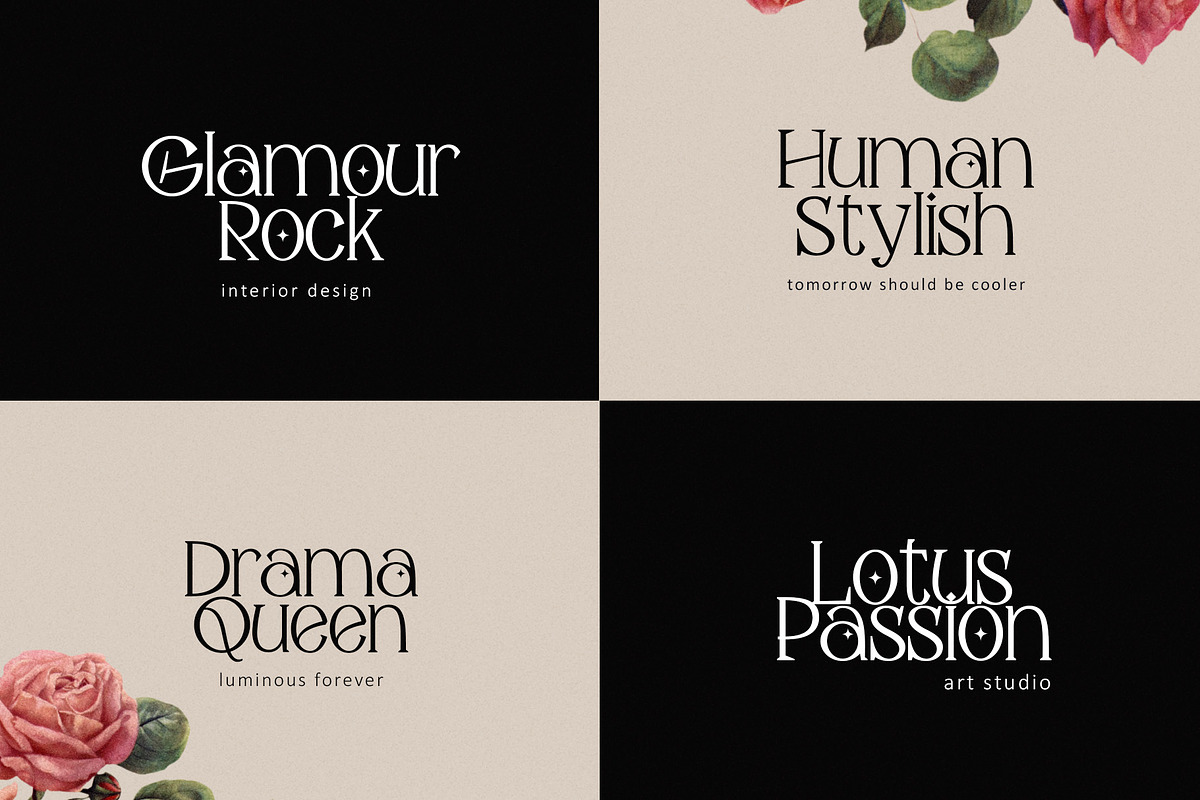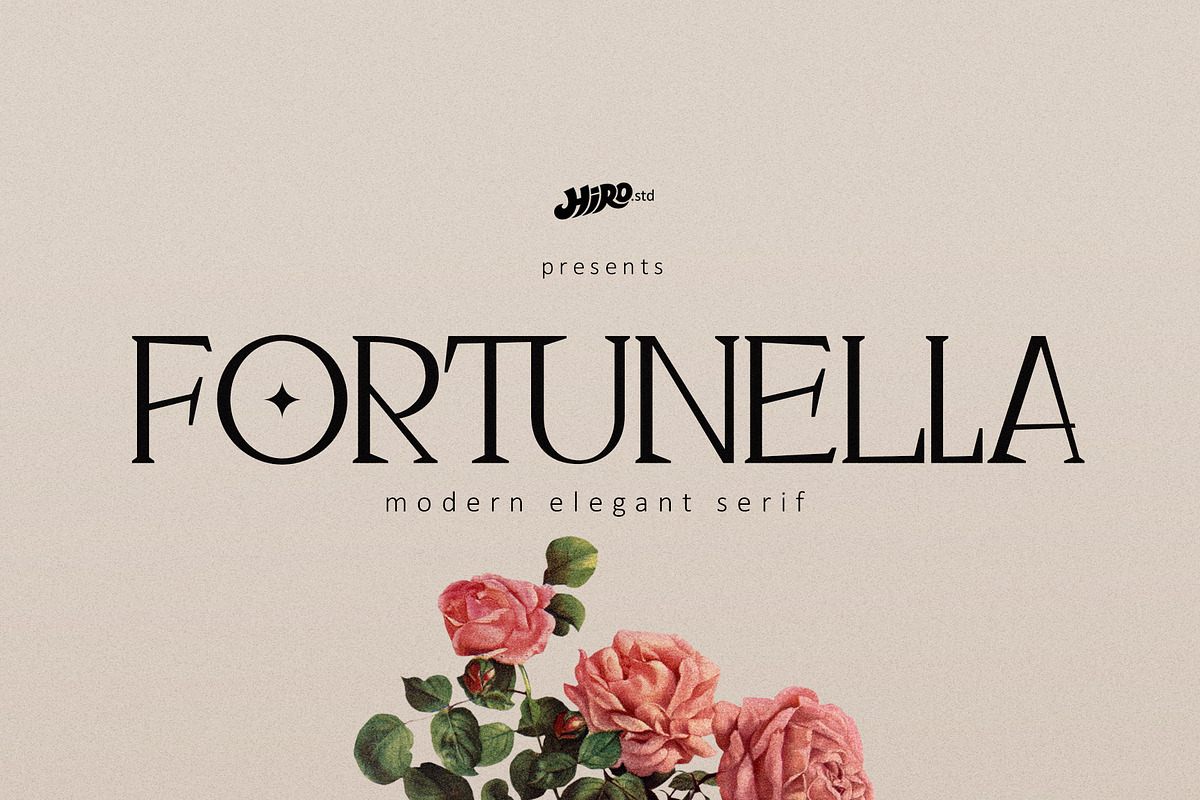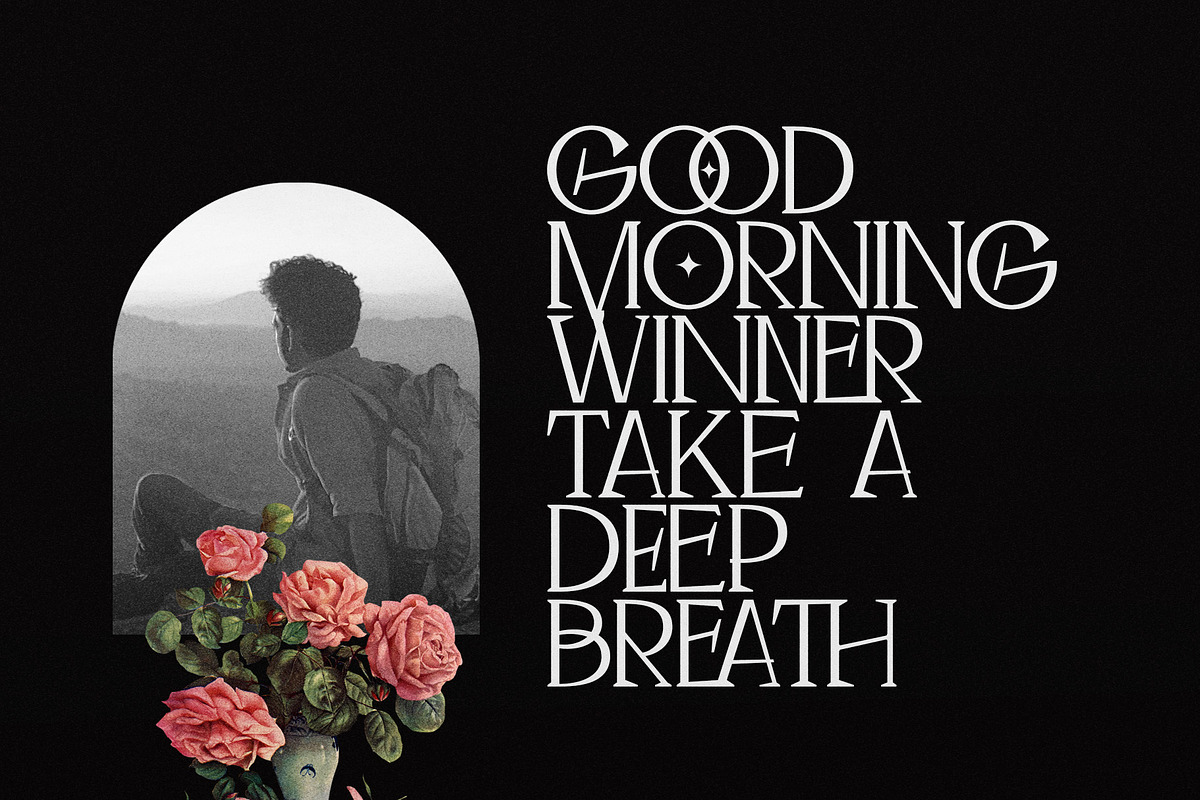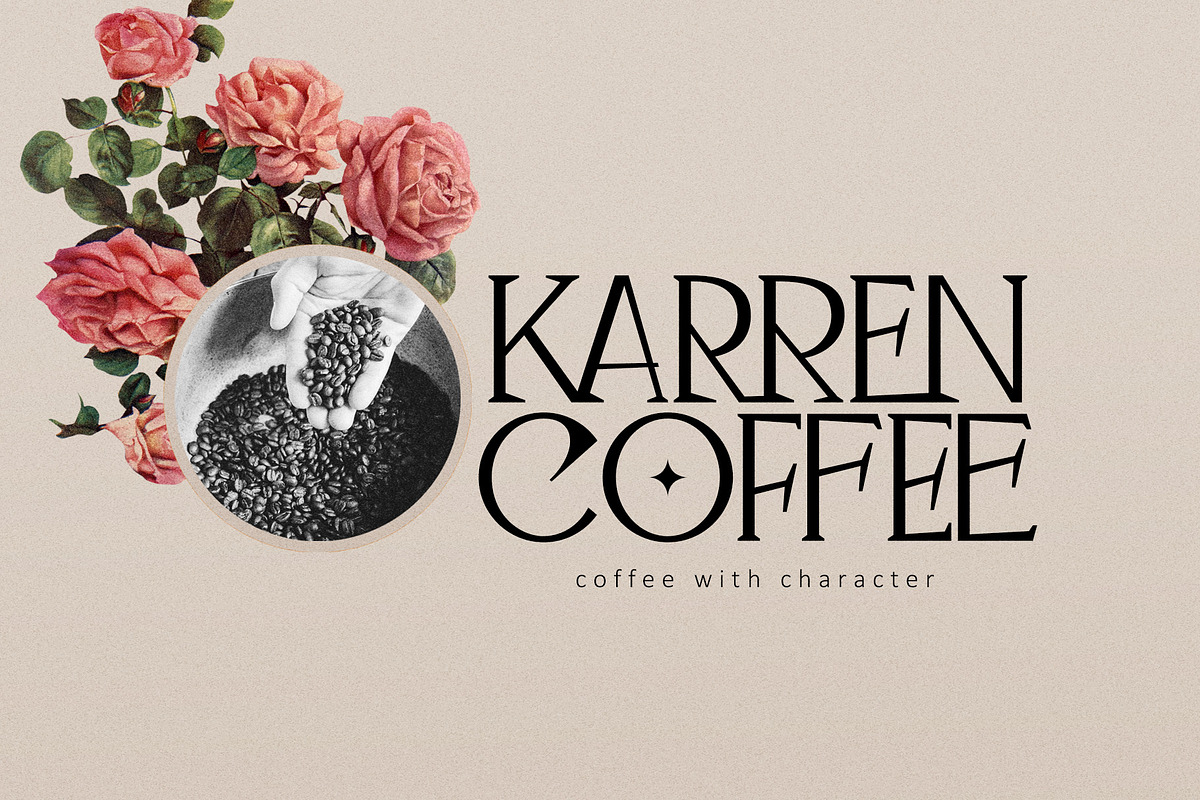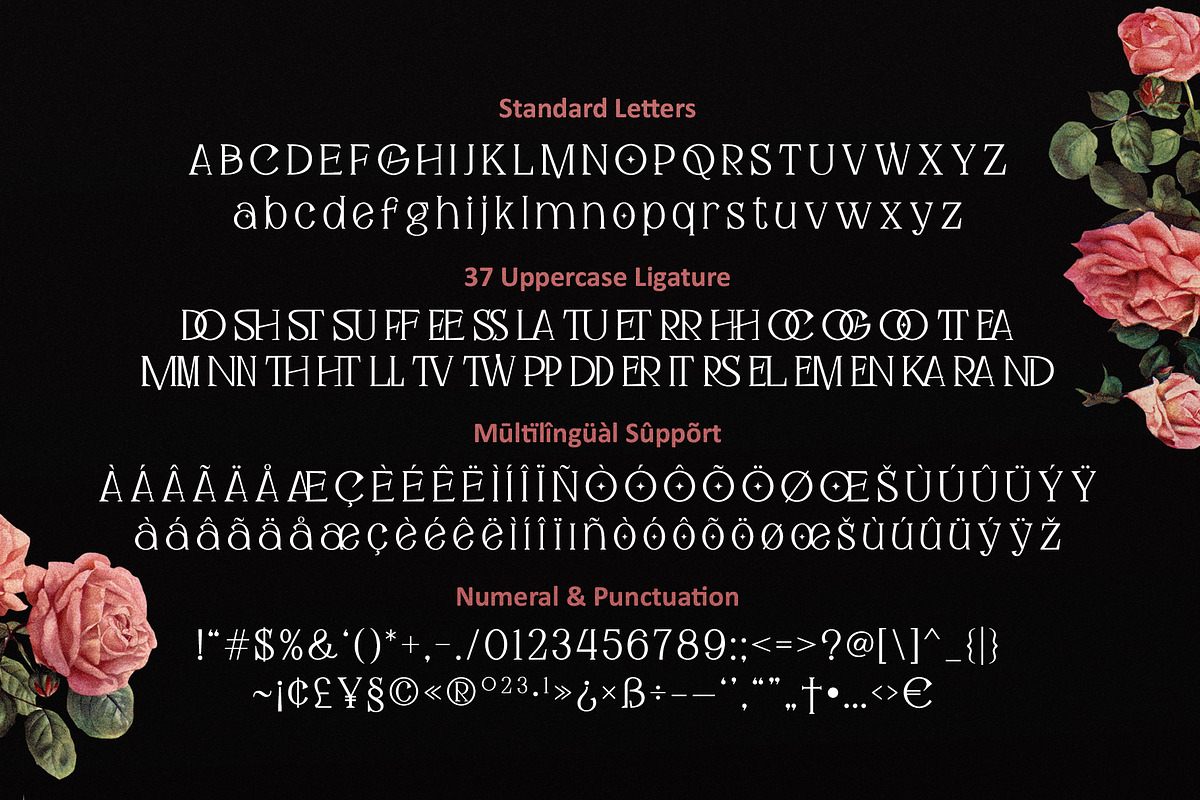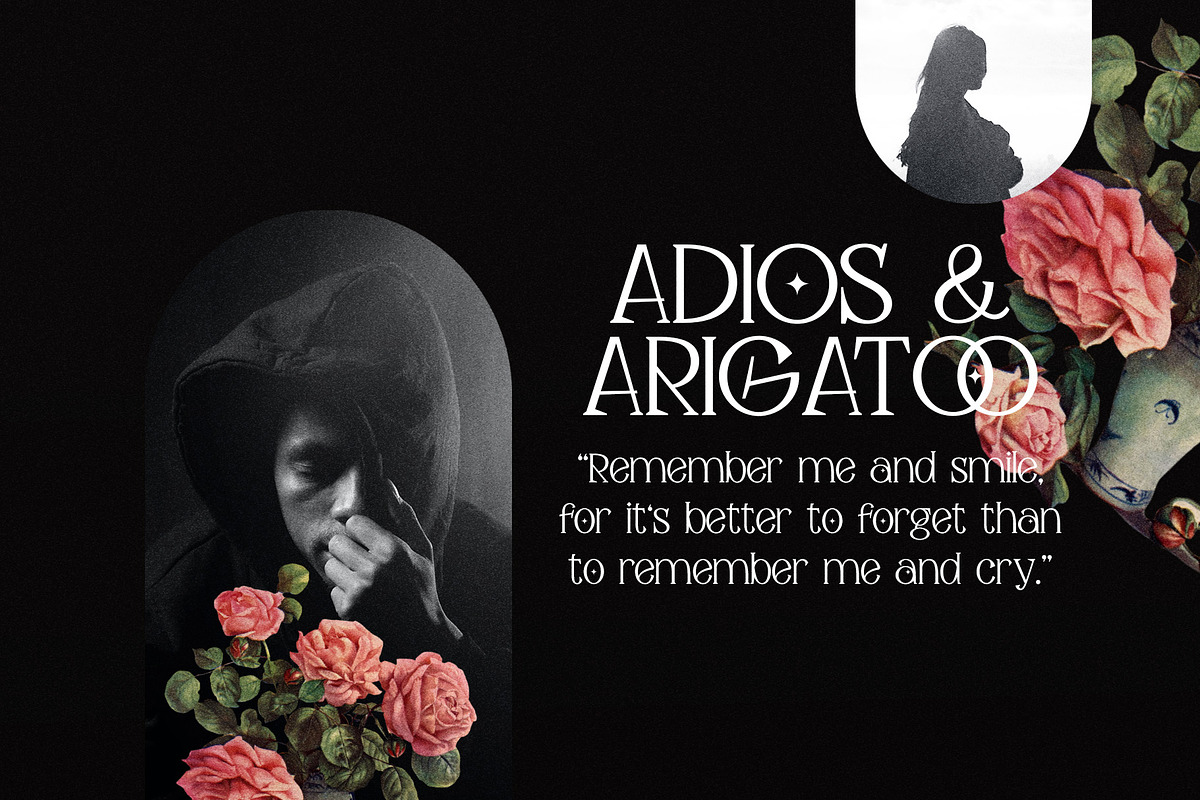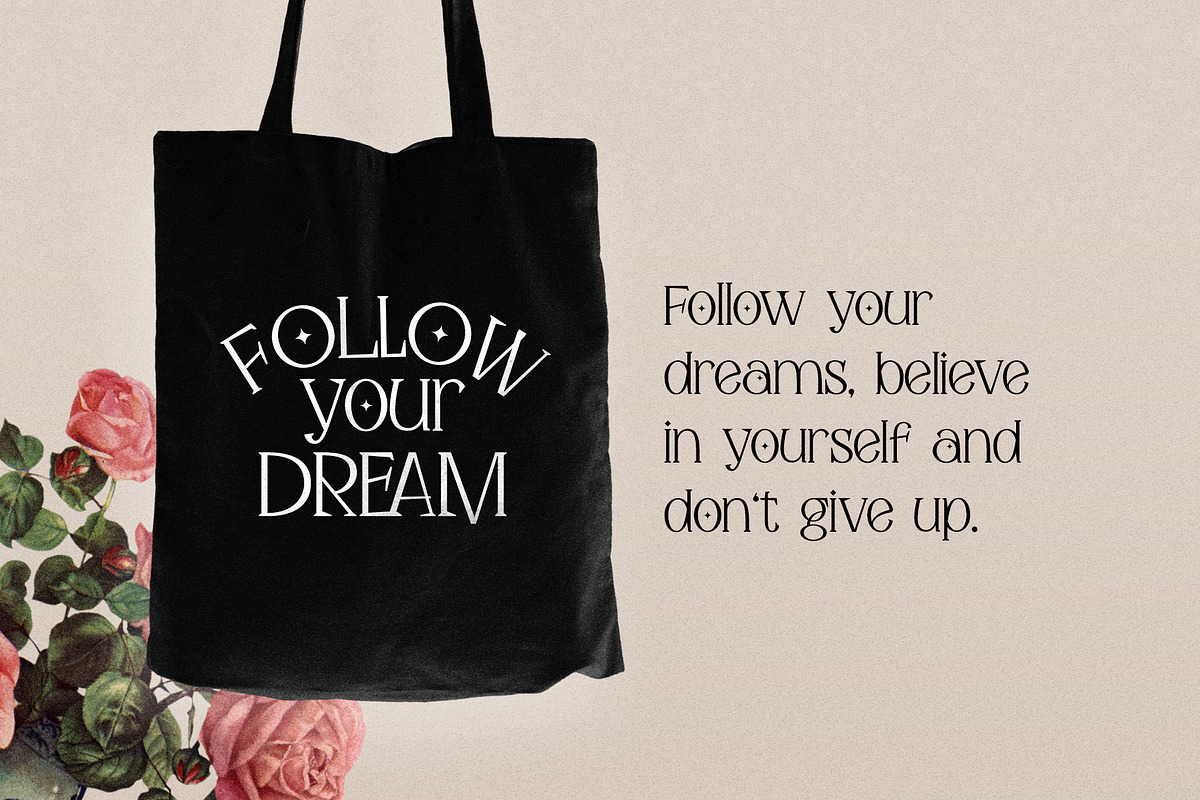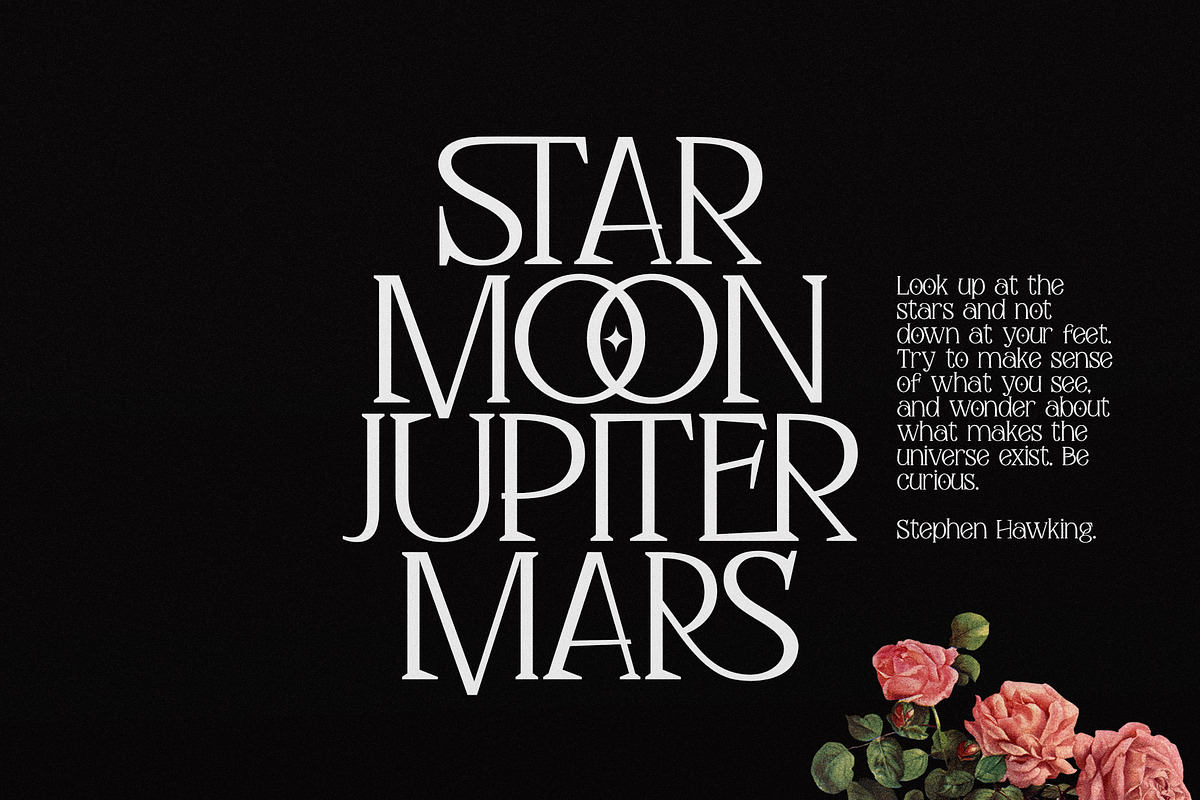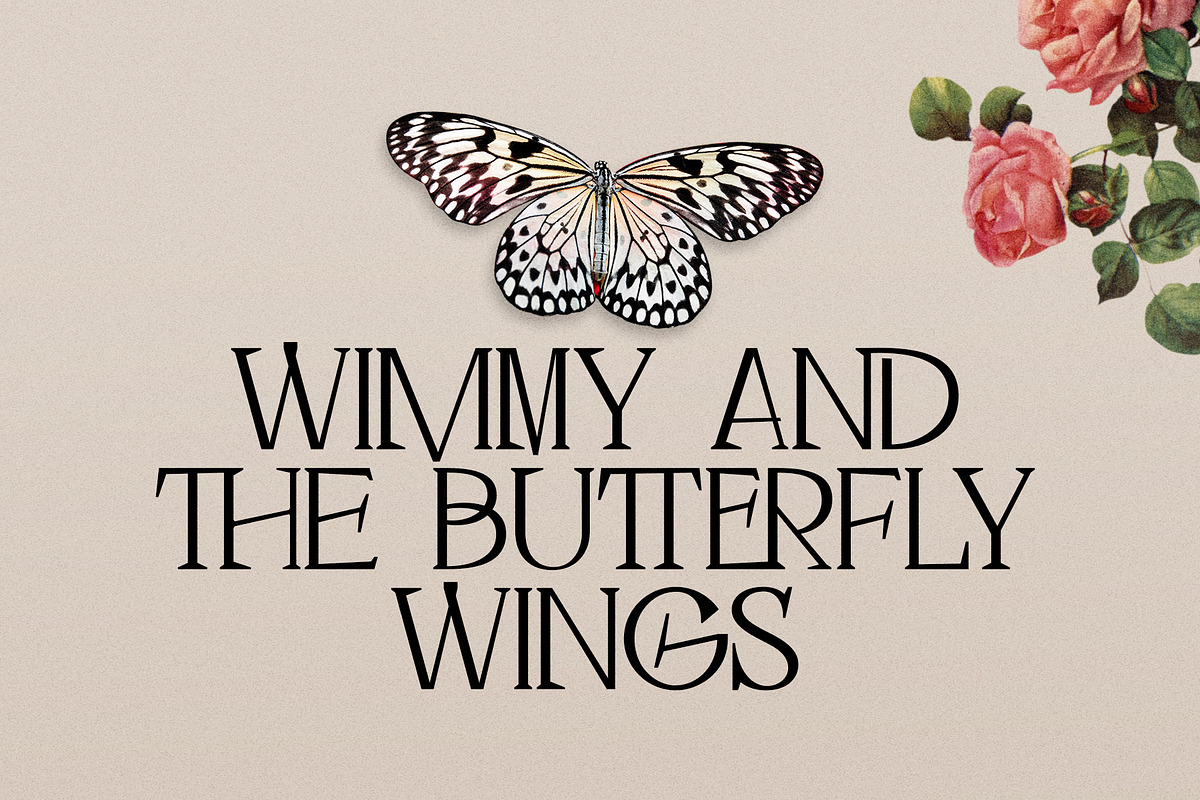
Fortunella - Modern Serif
Fortunella is a modern elegant serif font
This font describes about elegant, luxury, modern, stylish, exclusive and very easy to use. Fortunella inspired from the modern era and simple life style.
- Support Opentype Features
- 37 Uppercase Ligatures
USE Fortunella works great in logotype, magazines, fashion, craft, packaging, books, novels and any type of advertising purpose.